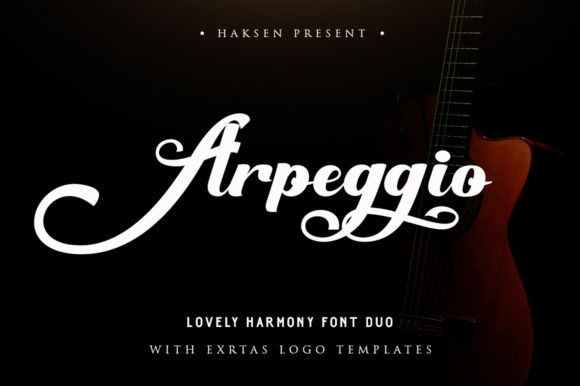
Prepare to be mesmerized by the enchanting Arpeggio Duo Font, a breathtaking symphony of creativity that will elevate your designs to new heights!
Picture this: a flawless harmony of flowing script and crisp sans serif, entwined to form a dynamic duo that grants you limitless possibilities. Unleash your imagination with the script's graceful curves, perfect for adding a touch of elegance to your creations. Then, for a touch of modern sophistication, switch to the sans version, its clean lines adding a touch of contemporary flair.
But wait, there's more! This extraordinary font duo comes adorned with a treasure trove of six captivating logo templates, ready to ignite your branding with originality. Whether you're crafting heartfelt greeting cards, building a strong brand identity, designing sleek business cards, or expressing your thoughts through captivating quotes, Arpeggio Duo is your maestro of style.
Its versatility extends far and wide, making it the perfect companion for posters that speak volumes, social media posts that captivate, and packaging that enchants. With Arpeggio Duo, the world of design becomes your stage, where you can showcase your creations with confidence and flair.
Embrace the Arpeggio Duo Font today, and let your imagination dance across the page. Its enchanting charm will weave a spell on your designs, leaving a lasting impression that echoes the beauty of a perfectly orchestrated symphony.